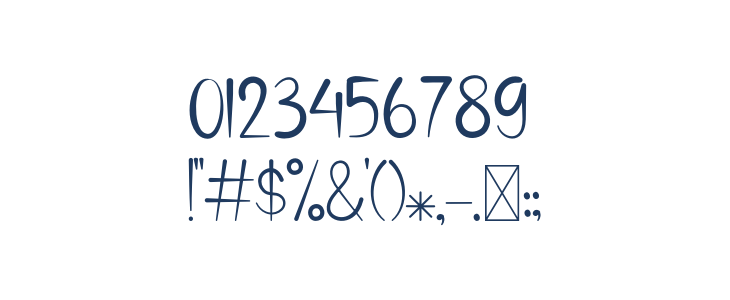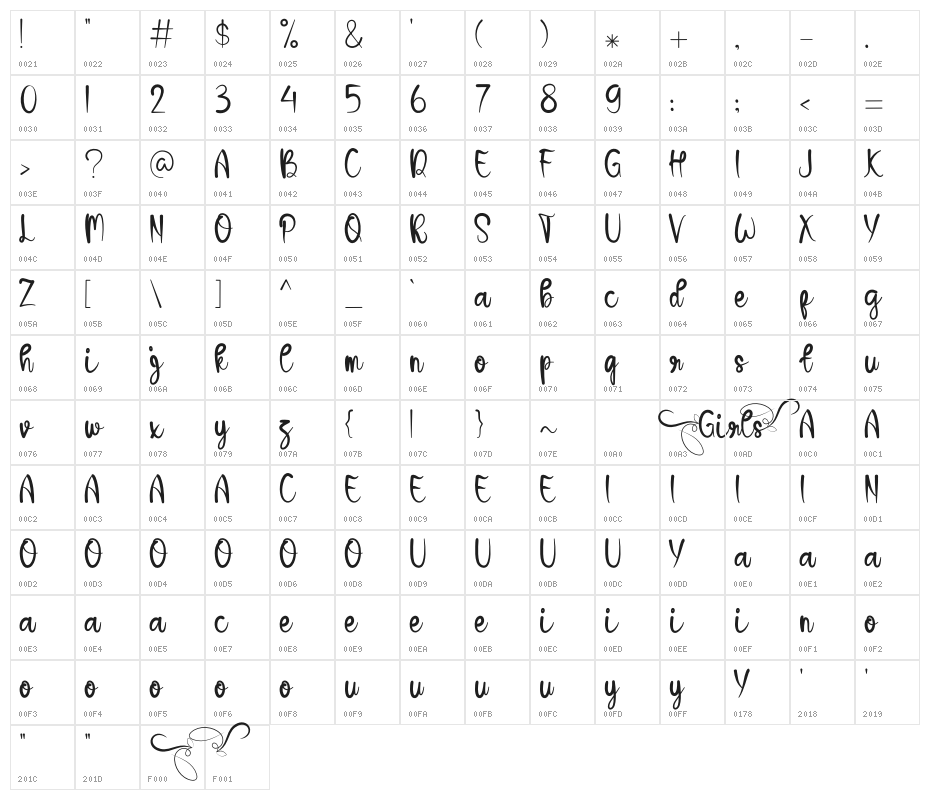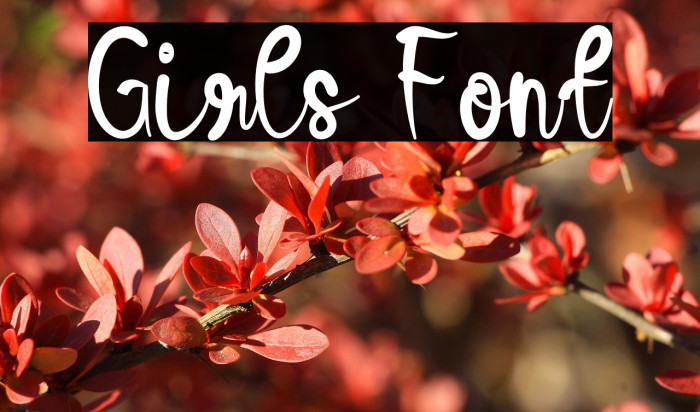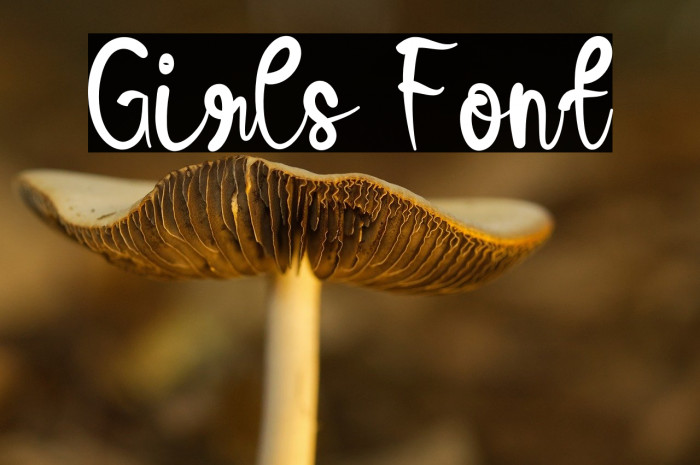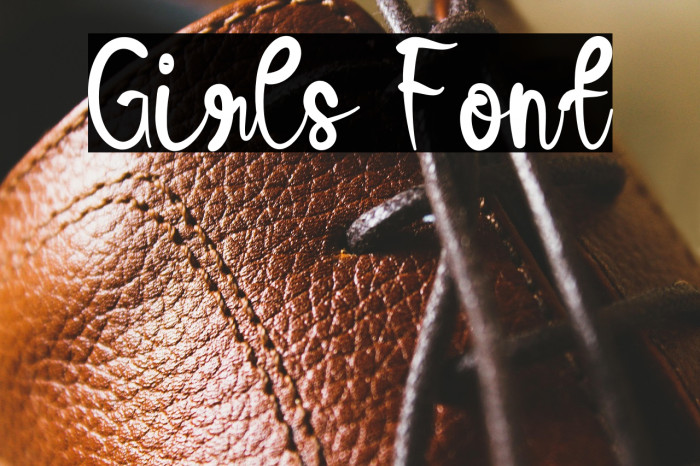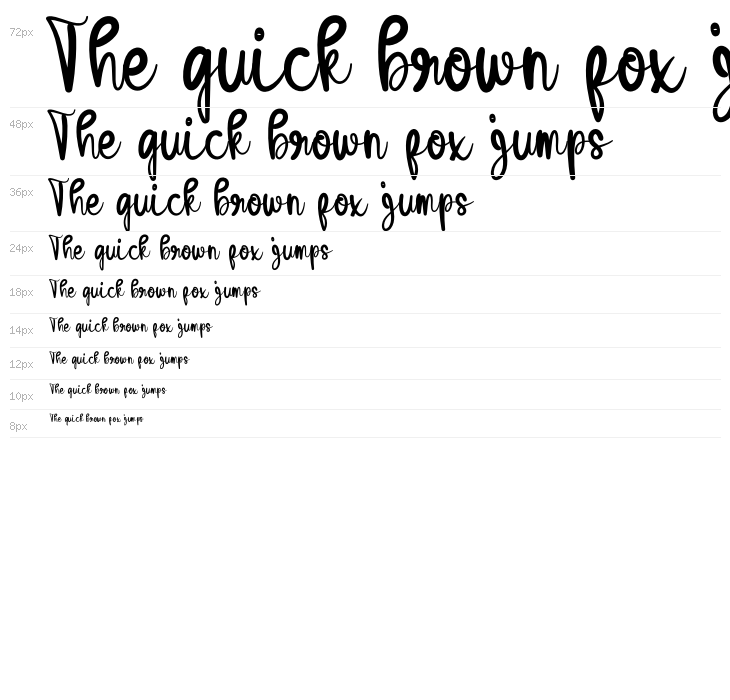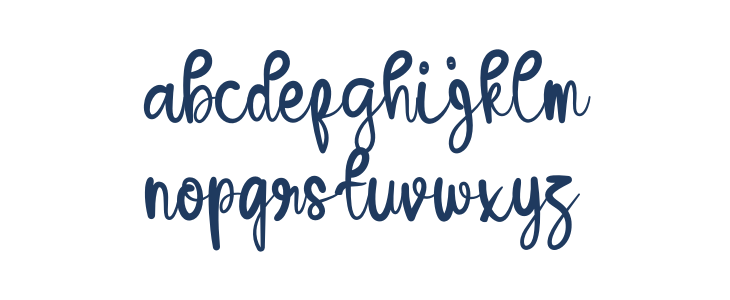
Girls Font
Girls Description
This font features a playful and whimsical script style, characterized by its flowing, interconnected letters and a hand-drawn appearance. The uppercase letters are bold and expressive, with varying stroke widths that add a dynamic feel. The lowercase letters maintain a consistent style, with loops and curves that enhance the font's lively personality. Numbers and special characters are designed to match the overall aesthetic, providing a cohesive look across all elements. The font's informal and friendly nature makes it suitable for creative projects that require a personal touch.
| Proposed Projects | Ideal for greeting cards, invitations, posters, and branding projects that seek a fun and personal touch. |